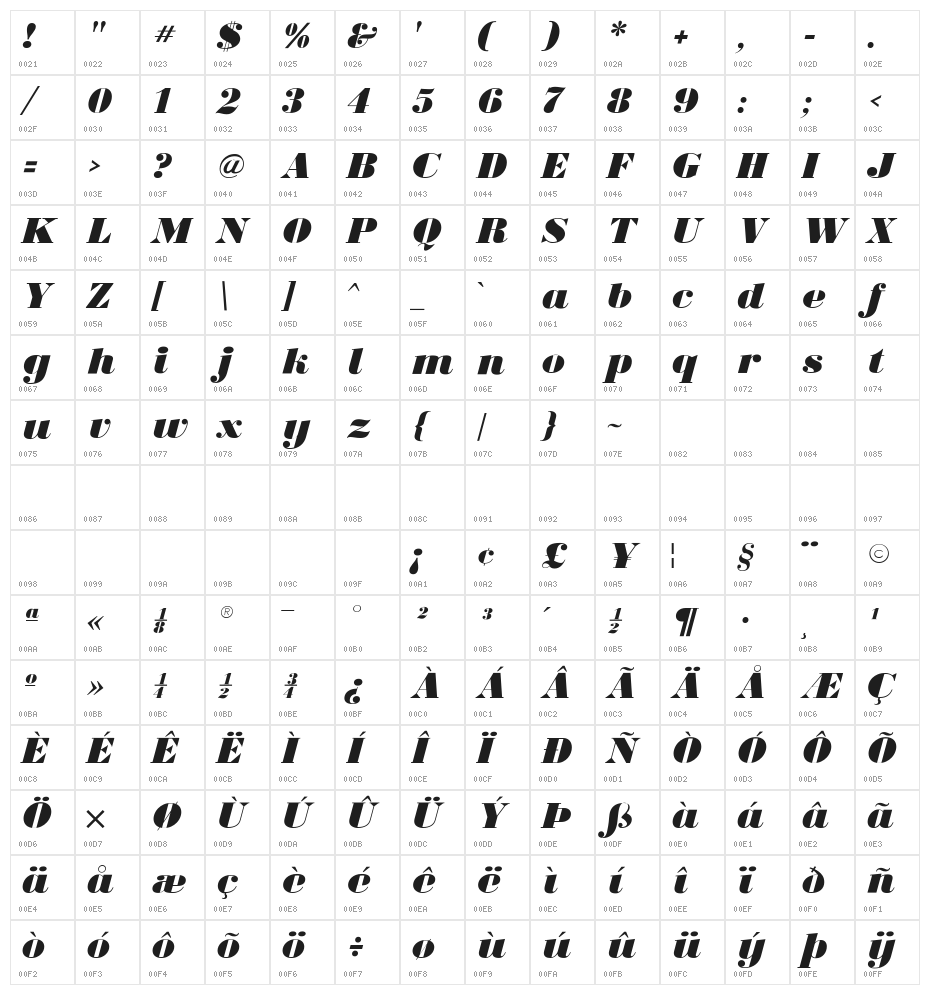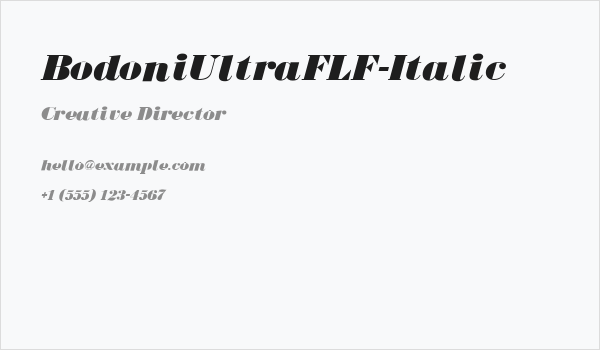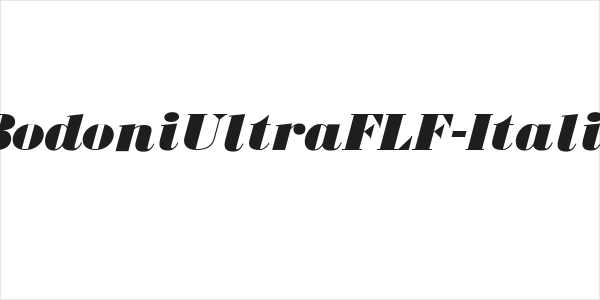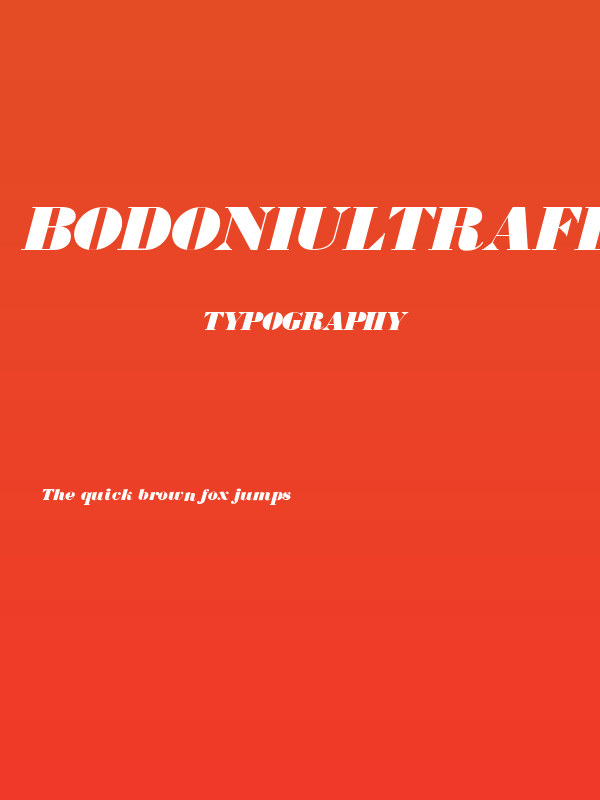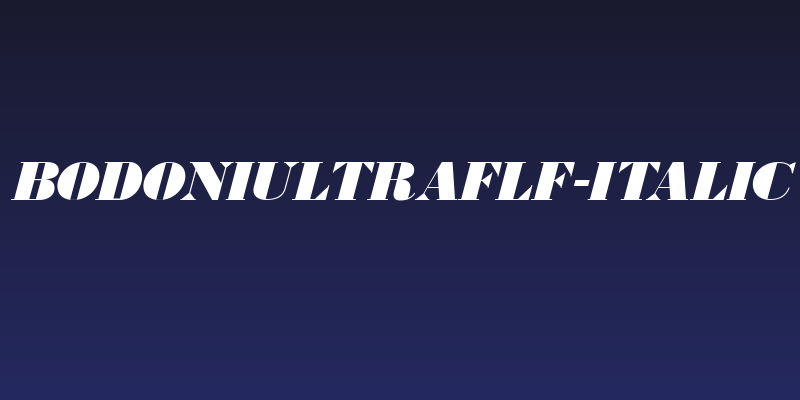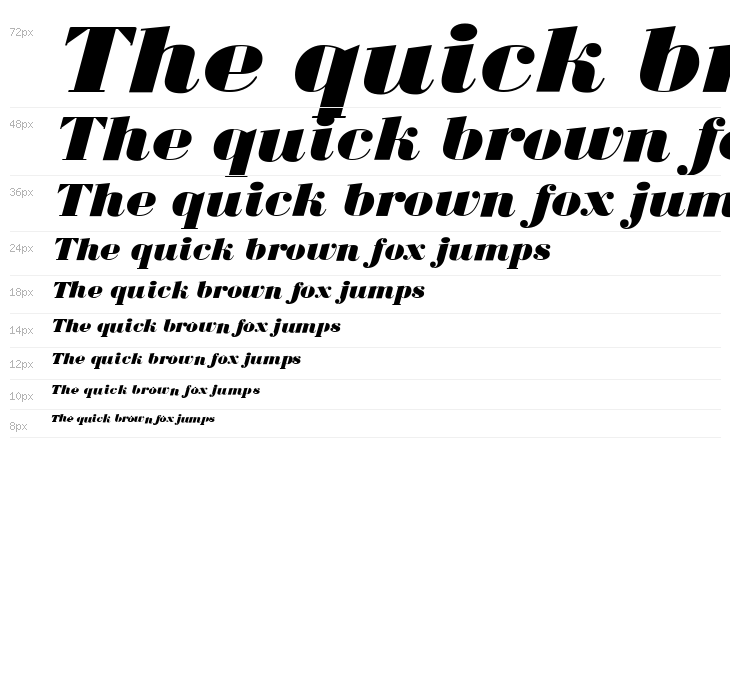
BodoniUltraFLF-Italic Font
BodoniUltraFLF-Italic Description
This font exudes a classic elegance with its high contrast between thick and thin strokes, characteristic of the Didone style. The italic slant adds a dynamic and sophisticated flair, making it ideal for projects that require a touch of refinement. The serifs are sharp and pronounced, enhancing the overall formal appearance. The uppercase letters are bold and commanding, while the lowercase letters maintain a graceful flow. Numbers and special characters are designed with the same attention to detail, ensuring consistency throughout. This font is perfect for creating impactful headlines, elegant invitations, or sophisticated branding materials.
| Proposed Projects | Ideal for luxury branding, wedding invitations, editorial design, and high-end product packaging. |